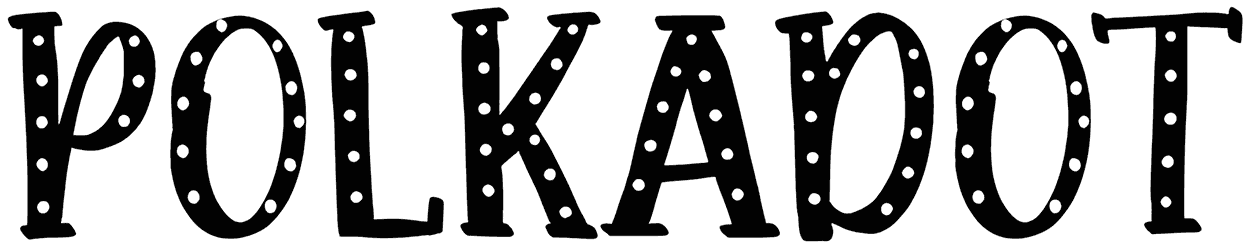
Polkadot Font
Have you ever seen something like Polkadot font taking fun and playful vividness? This cartoon font can provide an opportunity to stay ahead of the pack in designing graphical displays. The serif font without lowercase letters comes in handy for the children’s room, kindergarten decoration, and pupils’ presentations for schools.